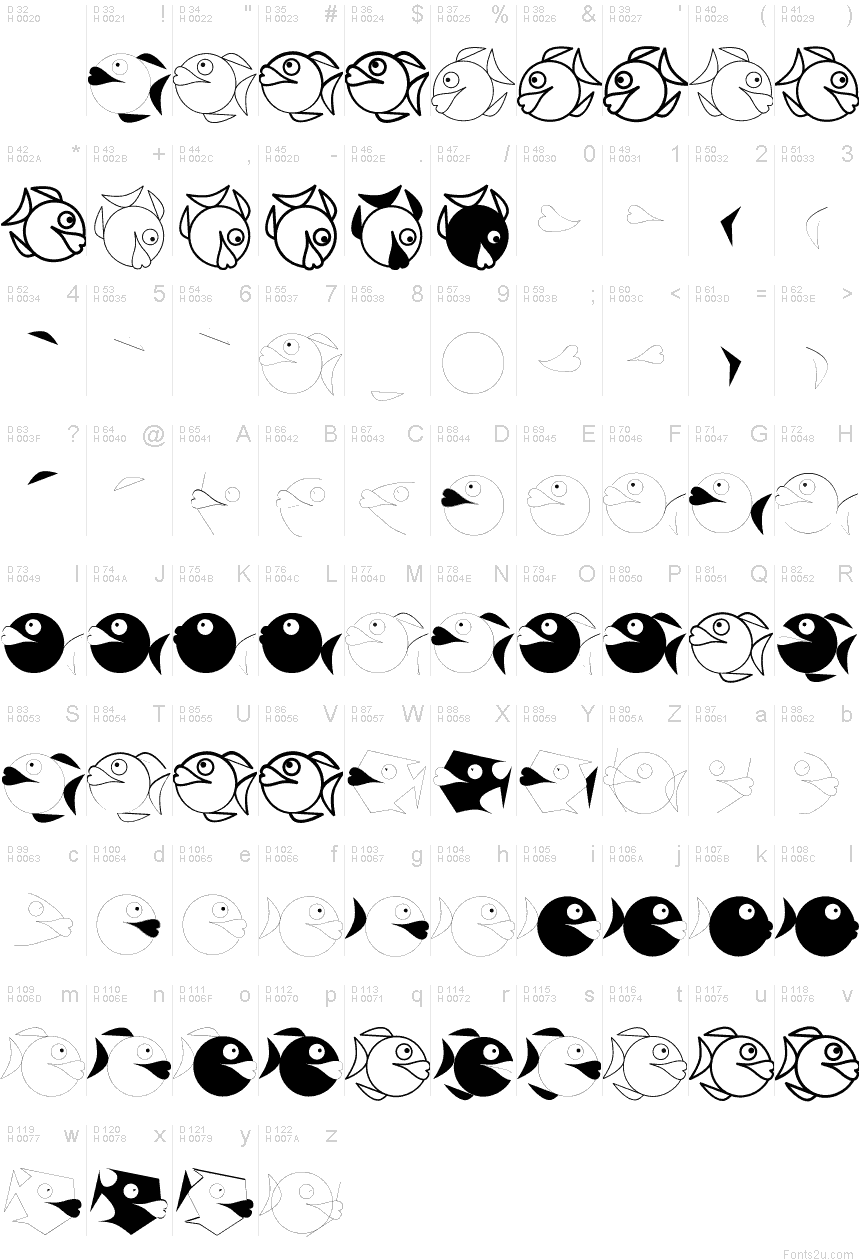
How Draw A Fish by M Klein is a free cartoon animal dingbat font whose fish combine circular bodies, pointed fins, oversized lips, staring eyes, spare outlines, and solid silhouettes. The result resembles a quick, good-humored drawing lesson.
A children's art program or activity-book publisher could use these symbols for branding, worksheets, packaging, and playful editorial pages because the forms read as both simple pictures and instructions. Across those settings, the fish motif links demonstration and decoration, with each symbol serving as a sequence step or cheerful aquatic emblem.